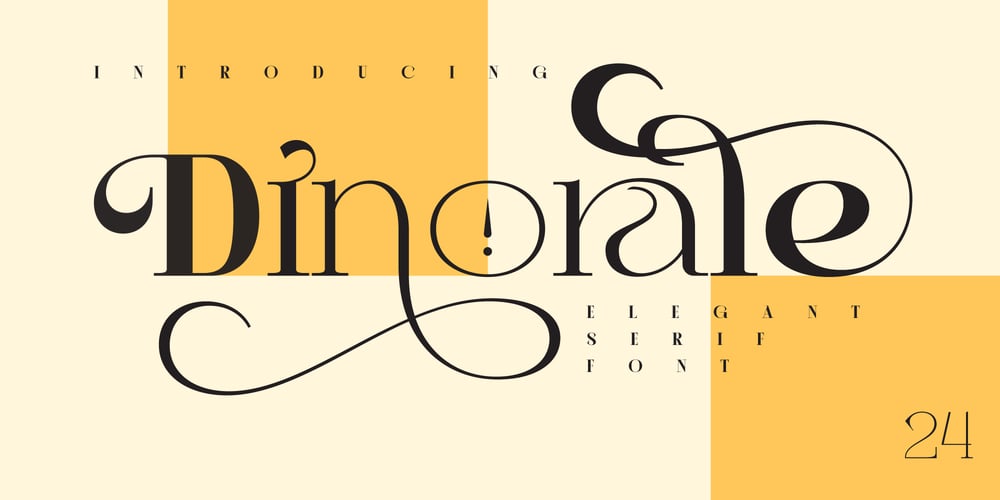
Dinorale Font Family was designed by Ekayasa and published by Authentype. Dinorale contains 9 styles and family package options. Dinorale Elegant Serif Font, a stunning typeface boasting 9 unique weights. This font isn’t just beautiful; it’s a versatile powerhouse, designed to elevate various design projects, particularly in the realm of beauty products and beyond.Crafted with meticulous detail, Dinorale offers a spectrum of weights, providing flexibility for conveying diverse moods and emphasizing key elements within your designs.Beyond its aesthetic appeal, this font shines with its stylistic elements, featuring graceful swashes and intricately designed ligatures. These elements add a touch of sophistication and creativity, enhancing the visual allure of your typography while maintaining readability and elegance.Ideal for beauty product branding, editorial designs, luxurious packaging, and more, Dinorale Elegant Serif Font transcends mere letters to become an essential tool for designers seeking to infuse sophistication and beauty into their creations.